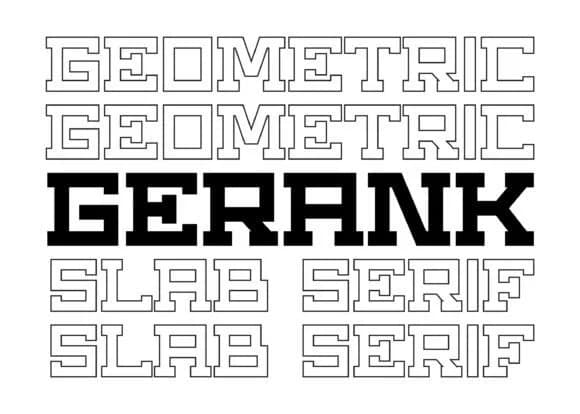
This typeface announces itself with unapologetic weight and geometric precision. Gerank Regular, designed by BarakaType, is a slab serif built for maximum visual impact across any surface. Its heavy letterforms and blocky proportions create a structural sensibility that reads as confident and direct, the kind of design that doesn't need to whisper to be heard.
The font earns its place in athletic wear graphics, where bold typography anchors a garment's visual identity. Skateboard deck designs benefit from its geometric muscle, as do bold music event posters and gym branding that demands tangible presence on paper or fabric. Collegiate athletic programs have traditionally turned to typefaces with this kind of weight, and Gerank carries that legacy directly into contemporary streetwear and high-impact apparel branding without nostalgia. It's equally at home on vinyl records, poster art for independent events, or any project where visual authority matters.
Its blocky character also works for packaging design when you need something that reads from a distance and holds its own among competing products on a shelf. Pair it with a crisp geometric sans-serif for smaller text to create breathing room and guide readers through information hierarchies. Find it on Creative Fabrica, ready to bring that structural confidence to your next project.
- Sturdy, Confident, Geometric
Gerank Regular Font is a slab serif font that shines as a display or heading face. Pair it with a clean sans-serif or serif font for body text β the contrast creates a clear hierarchy while the two styles stay balanced and easy to read.